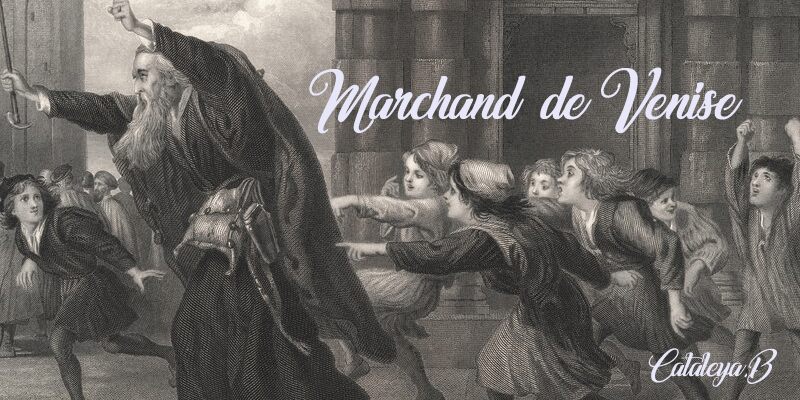
Marchand de Venise is an exquisite calligraphic font that exudes elegance and sophistication. Crafted by designer Cataleya Butcher, this script-inspired typeface captivates with its fluid, sweeping strokes and intricate flourishes. The distinctive letterforms evoke a sense of timeless artistry, seamlessly blending traditional calligraphy with a modern flair.
This font's versatility allows it to shine in a variety of design applications, from high-end branding and editorial work to sophisticated event invitations and luxury packaging. Its ornamental yet legible nature makes it an ideal choice for projects that require a touch of refinement and exclusivity, elevating the overall aesthetic and leaving a lasting impression on the viewer.
Marchand de Venise